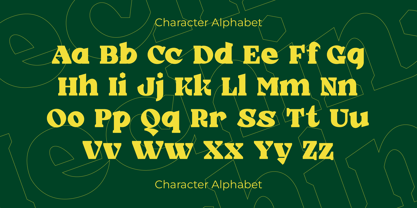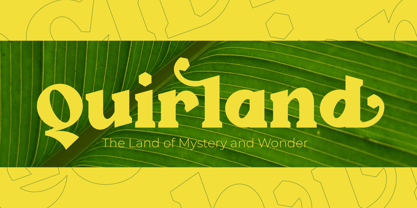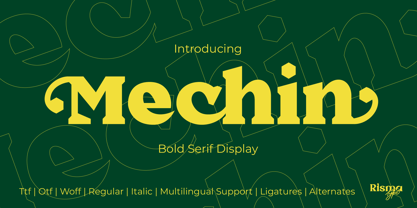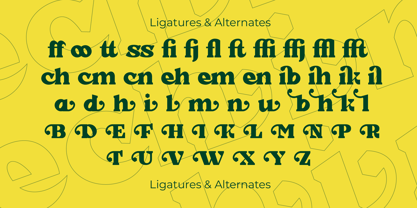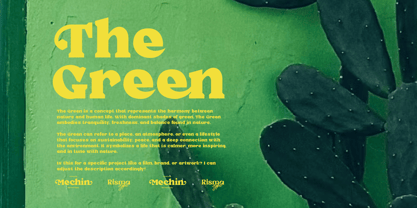
Mechin
by Risma Type
The Mechin Font Family was designed by Risma Mulyasari and published by Risma Type. Mechin contains 2 styles and family package options.
Mechin – Bold Serif Display for Timeless Impact
Mechin is a bold serif display font designed to make a lasting impression. With its strong, well-defined letterforms and refined details, it seamlessly combines classic elegance with modern versatility. Ideal for projects that require both sophistication and presence, Mechin is well-suited for branding, editorial design, luxury packaging, and high-impact visual identities.
Carefully crafted for readability and style, Mechin enhances any design with its bold yet polished aesthetic. Its versatility allows it to adapt effortlessly across print and digital applications, making it an essential choice for designers seeking a balance of tradition and contemporary appeal.
Key Features
• Distinctive bold serif display style
• Available in multiple styles for greater flexibility
• Optimized for branding, editorial, and luxury design
• Multi-language support for global accessibility
• Designed for high-impact and sophisticated typography
Mechin brings strength and elegance together, delivering a font that speaks with confidence and refinement.